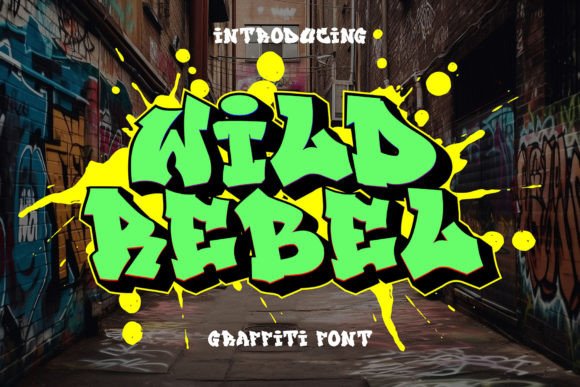
Journey into the realm of urban expression with "Wild Rebel", the font that captures the pulse of street art and urban rebellion. Its sharp edges and bold stance ignite a sense of raw authenticity, making it the perfect choice for projects that demand attention. Whether you're crafting music posters that resonate with raw energy, or designing apparel that exudes a rebellious spirit, "Wild Rebel" is your weapon of choice.
Unleash the renegade within and embrace the untamed beauty of this urban graffiti font. With "Wild Rebel" as your ally, your creations will command attention, leaving an indelible mark on the hearts of your audience. From shirts that speak volumes to streetwear that oozes attitude, "Wild Rebel" is the ultimate expression of urban chic.
Dive into the world of "Wild Rebel" and discover a font that embodies the essence of street culture. Its striking appearance is a testament to the power of self-expression, inviting you to break free from the ordinary and embrace your individuality. Let "Wild Rebel" be your voice, and watch as your designs transform into captivating masterpieces that resonate with the urban soul.